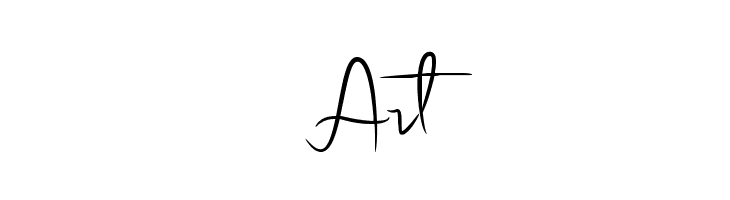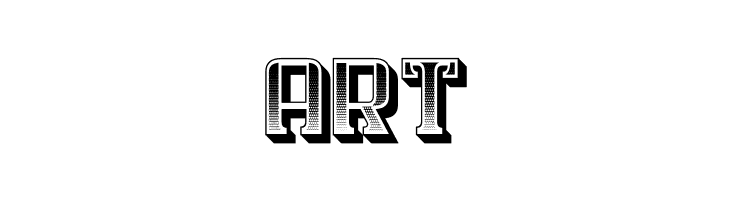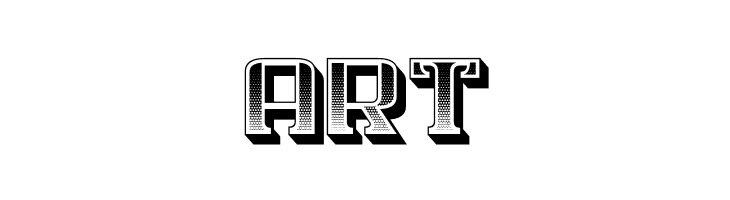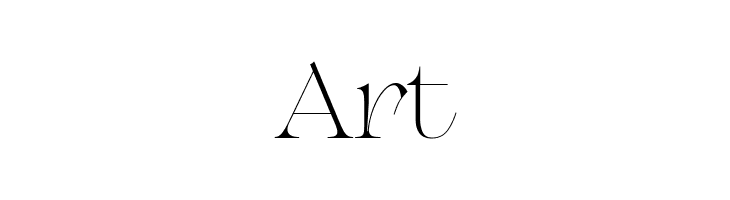
An elegant serif font with high contrast and stylish, angular serifs.
A delicate monoline font with elegant, consistent strokes and geometric structure.
An elegant and sophisticated font with high contrast and decorative elements.
A bold, geometric font with a 3D block-like appearance and strong visual impact.
A playful and whimsical script font with smooth, flowing lines and rounded edges.
A playful, handwritten font with tall, narrow letters and a casual style.
A bold, decorative font with a 3D effect and dotted inner detailing.
A bold, decorative font with a three-dimensional effect and intricate detailing.
A lively, expressive handwritten font with dynamic strokes and playful characteristics.
A bold, 3D geometric font with halftone shading and a strong visual impact.